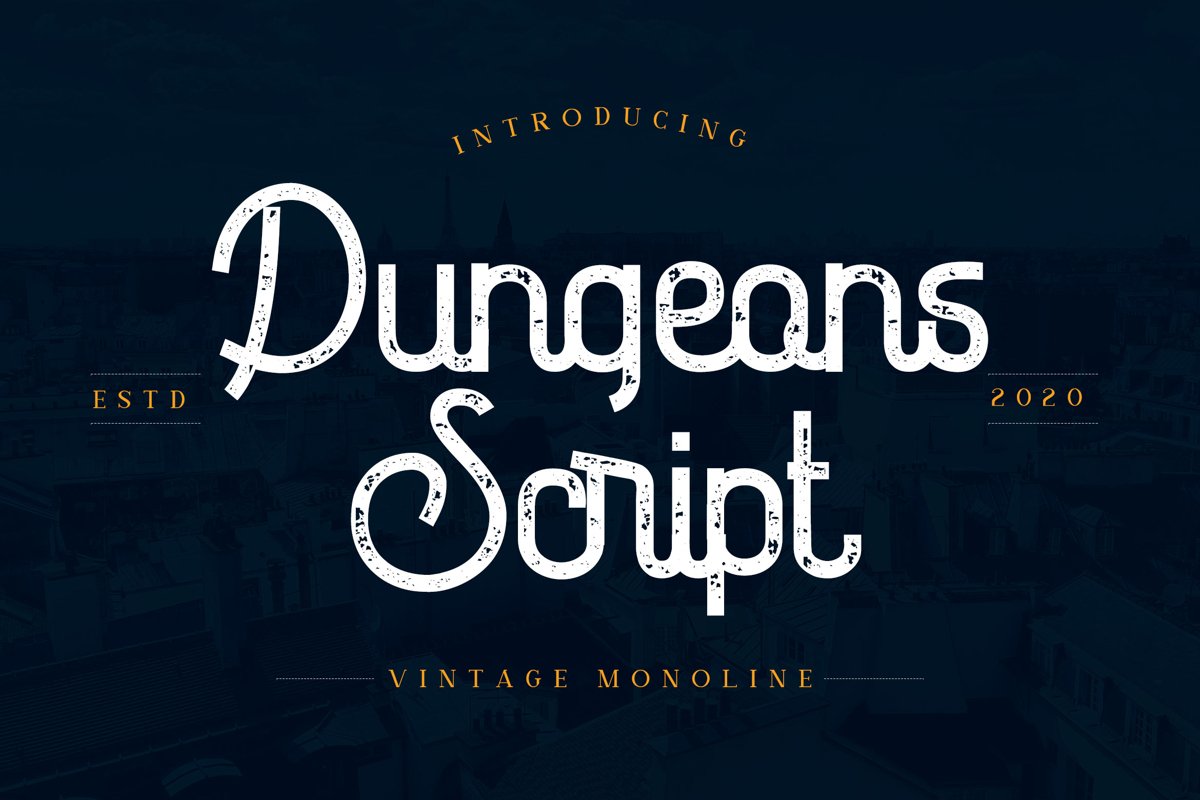
Dungeons - Vintage Monoline Script Font
Dungeons
Dungeons font is vintage monoline script font. It has vintage, elegant, old school, classy, and cool. It’s a great font for fashion,
apparel projects, signature, album cover, logo, branding, magazine, social media, & advertisements,
but also works great for other projects.
Highlight :
- The perfect font choice for powerful projects - watermarks, signatures, photography, logos, business cards, quotes,
album covers.